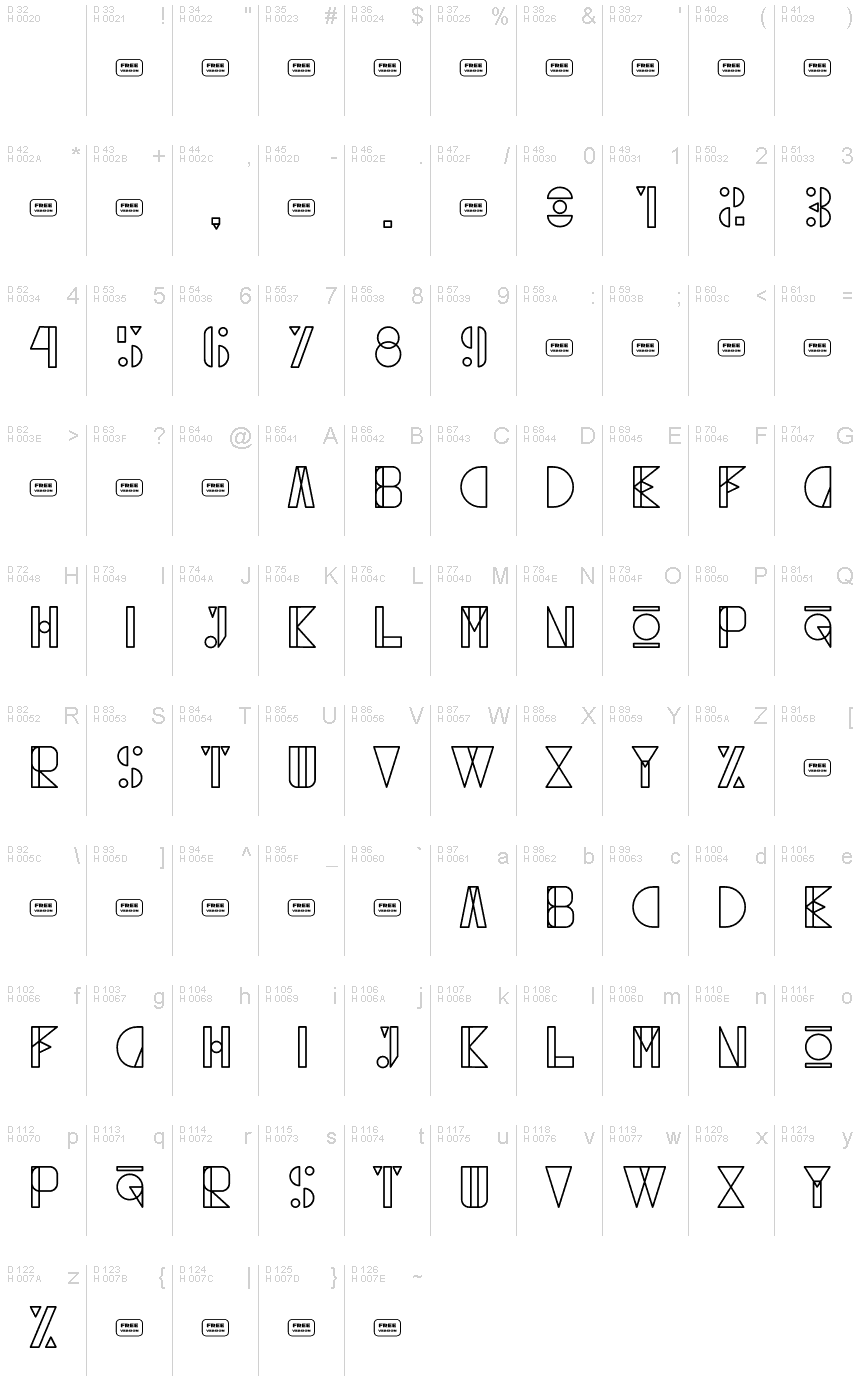
Foxnout is a space futuristic font designed by typefactory. Foxnout perfect for technology, digital, space galaxy theme. Also suitable for movie, documenter, film, logo, poster, game, book cover, headlines, title and many more projects.